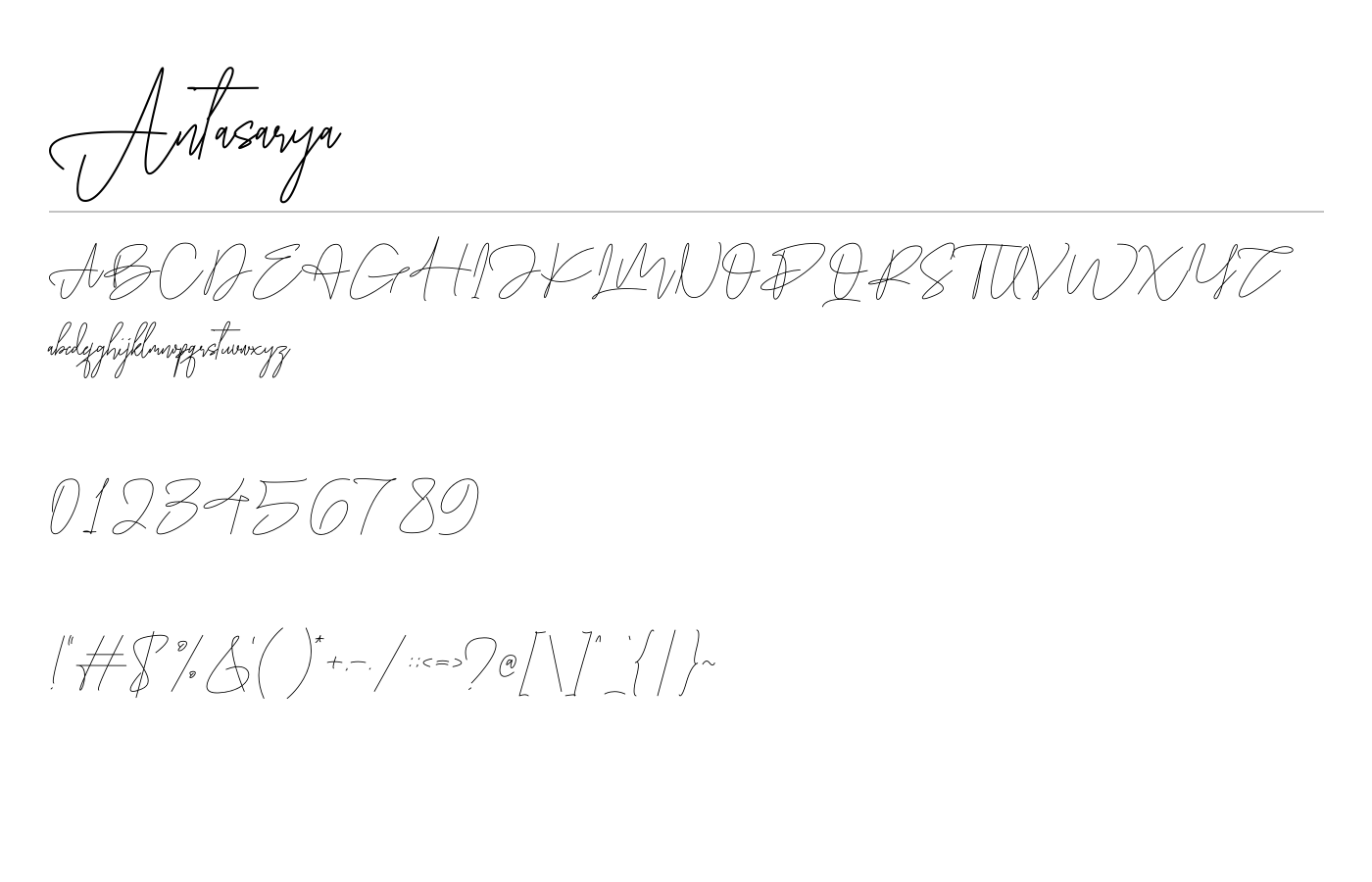
Antasarya is an elegant, delicate script font characterized by its thin, flowing lines and graceful handwritten style. Its light weight and airy spacing give it a sophisticated, modern feel perfect for luxury branding, wedding invitations, or stylish editorial designs that seek a personal, artistic touch. This font excels in creating a refined, expressive mood while maintaining readability in larger display uses like logos and headlines.
Antasarya Font
About Antasarya Font
| Font family | Antasarya Font |
| Designer | Jada Akbal |